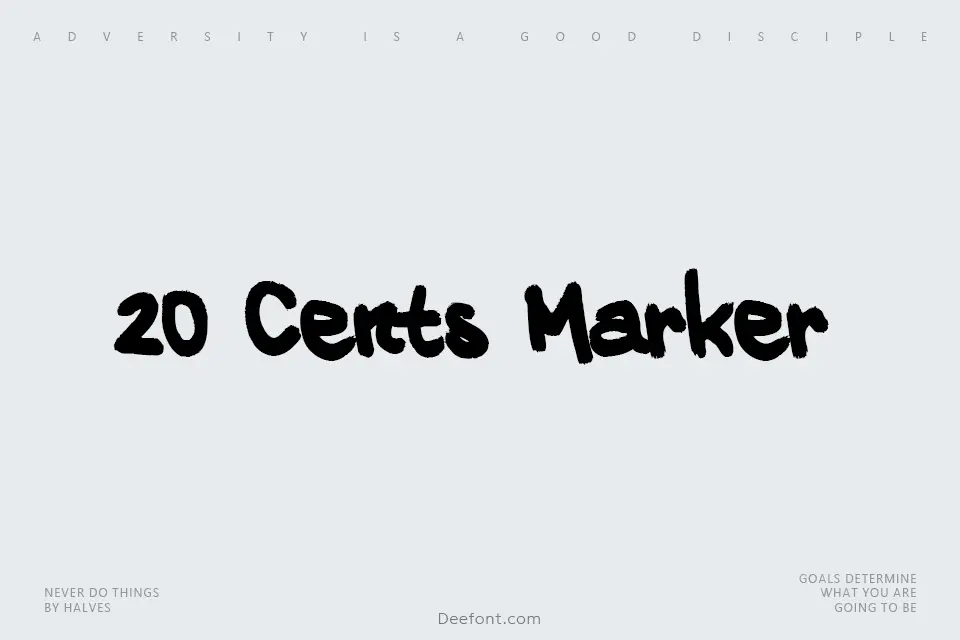
20 Cents Marker Font
20 Cents Marker Font is a bold, energetic handwritten typeface designed by Vinz. Mimicking the raw texture of a thick permanent marker, its heavy strokes and casual flow make it ideal for attention-grabbing posters, urban branding, and expressive titles. This brush-style font adds an authentic, handcrafted feel to digital designs.